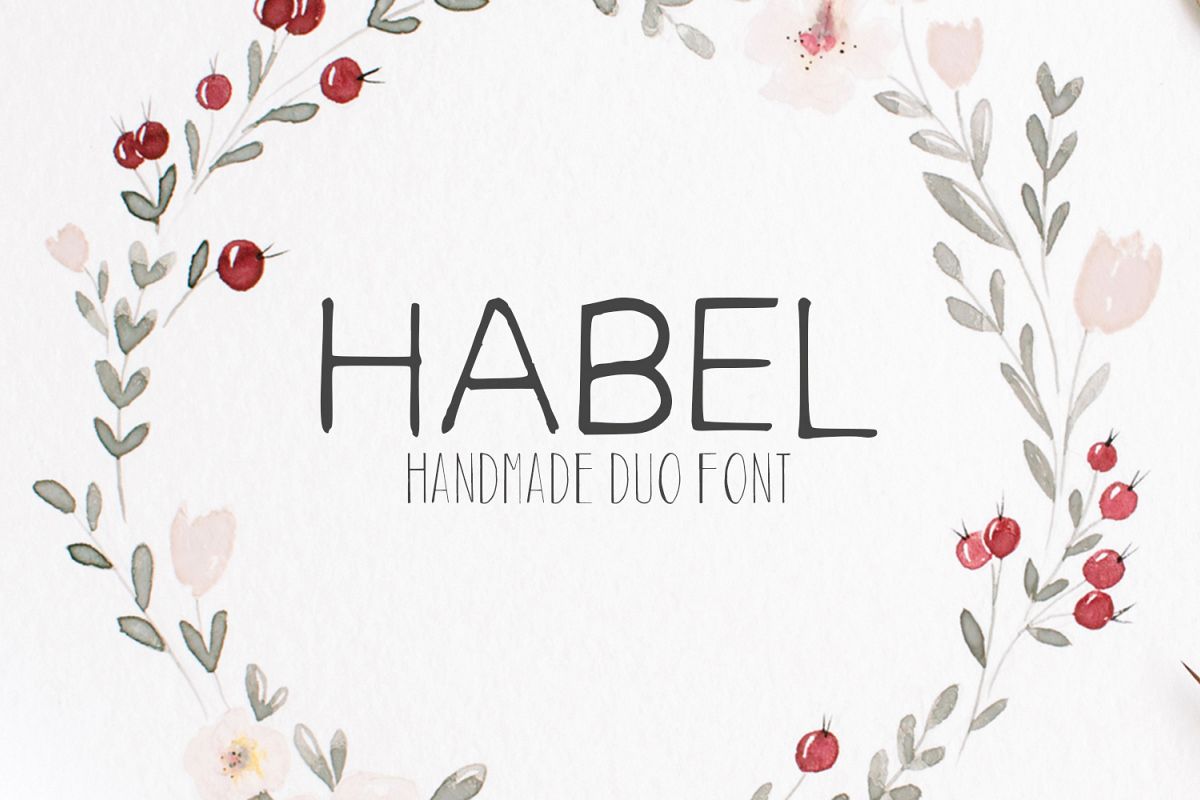
Habel Handmade Duo Font + Bonus Free
Habel Handmade Duo Font is a dual handmade brush script font containing uppercase, lowercase characters, numerals, punctuation and alternatives. These fonts look amazing in all caps with a wide-set spacing if you want to try a classy look, or beautiful on its own in capital and lowercase letters for something completely timeless. It will look best on handwritten quotes, branding & logo projects, merchandise, social media posts, displays, headers, invitations, save the dates, weddings, titles, product packaging, etc.